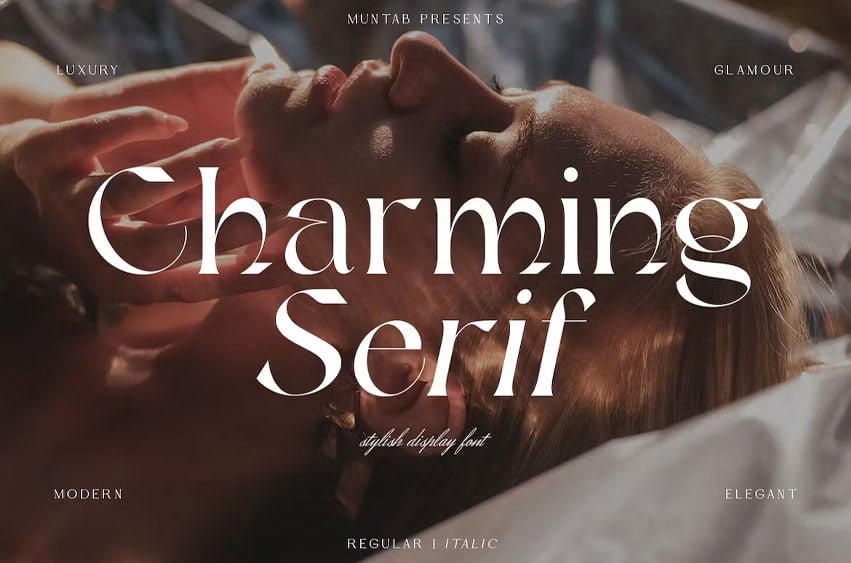
Charming Serif Font Serif fonts include uppercase letters, lowercase letters, numerals, and a large range of punctuation. Serif font with rertro style include alternate uppercase characters. Created for poster, web design, branding, illustrations, badges and some other works.